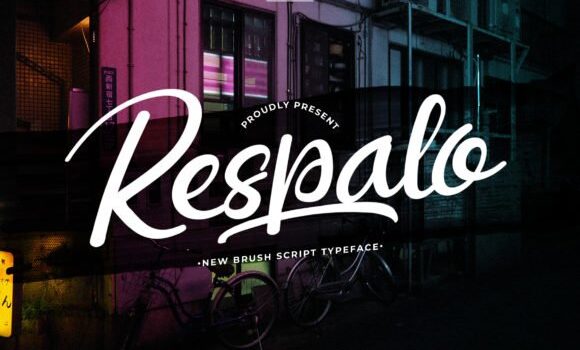
respalo
Respalo Font – Free Download Introduction to Respalo Font Respalo is a cursive and beautiful handwritten font, crafted to give your headlines and logotype projects a stylish touch. 📸 Preview Gallery 6 images 📌 Product Name Respalo Font 👤 Author